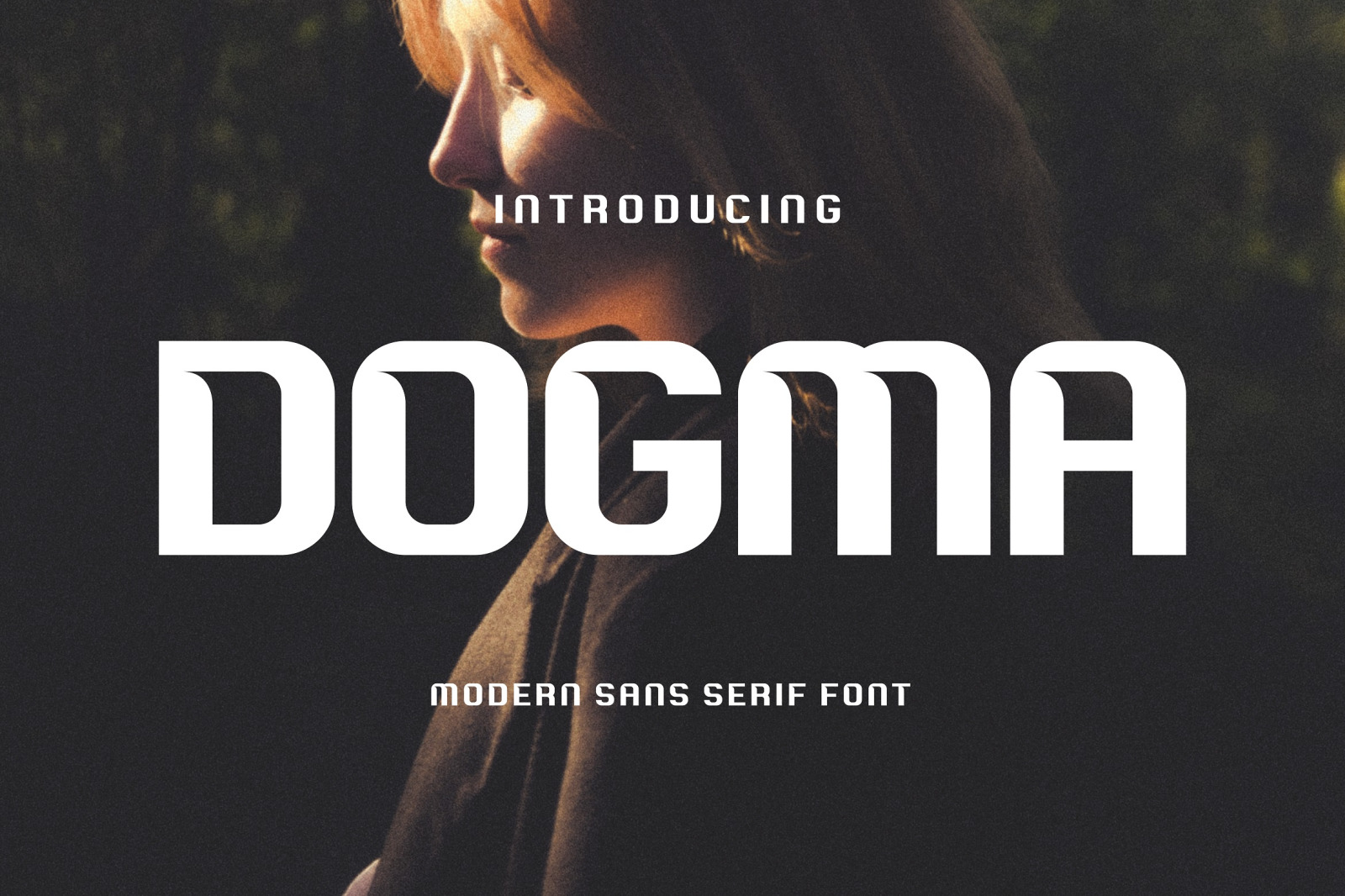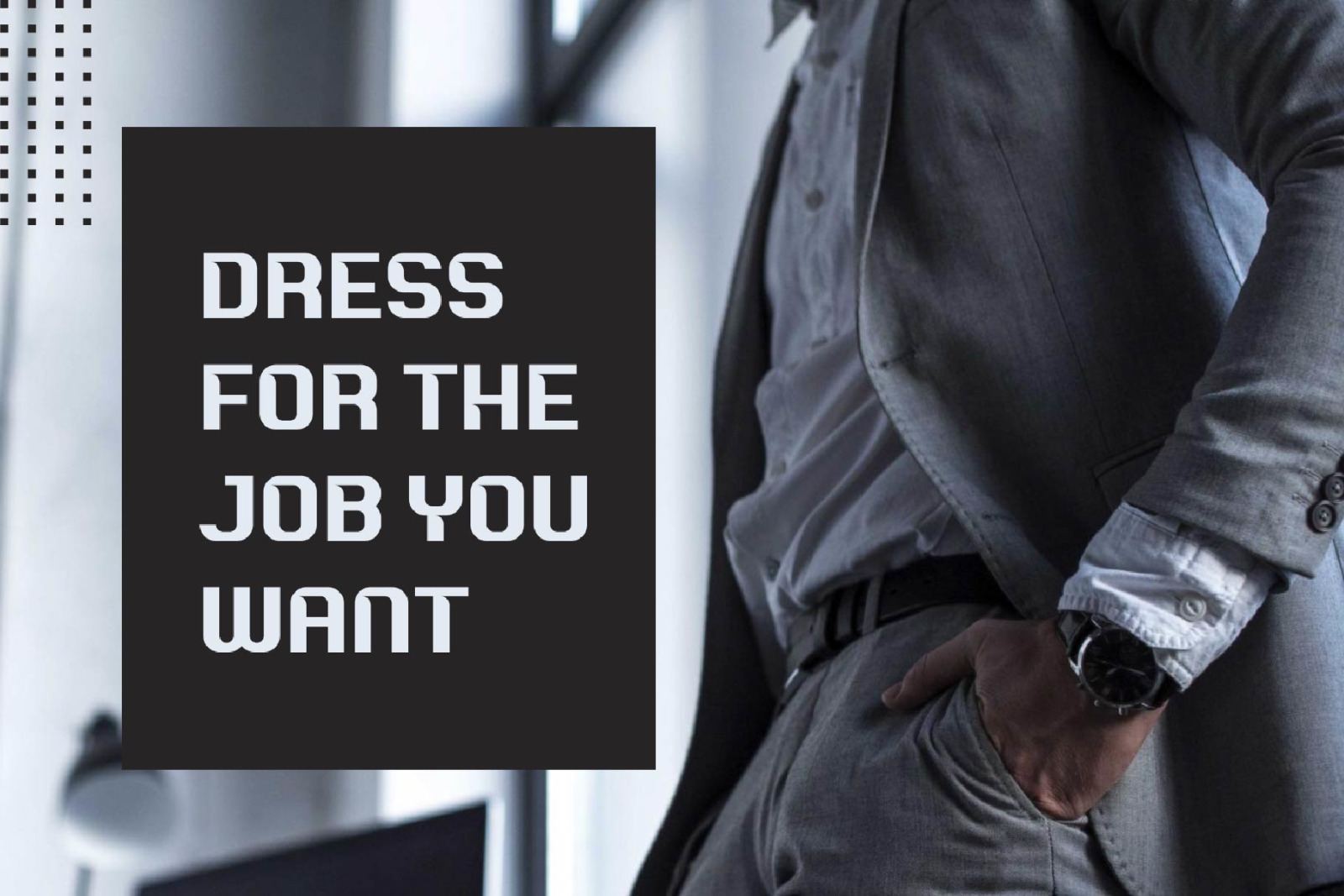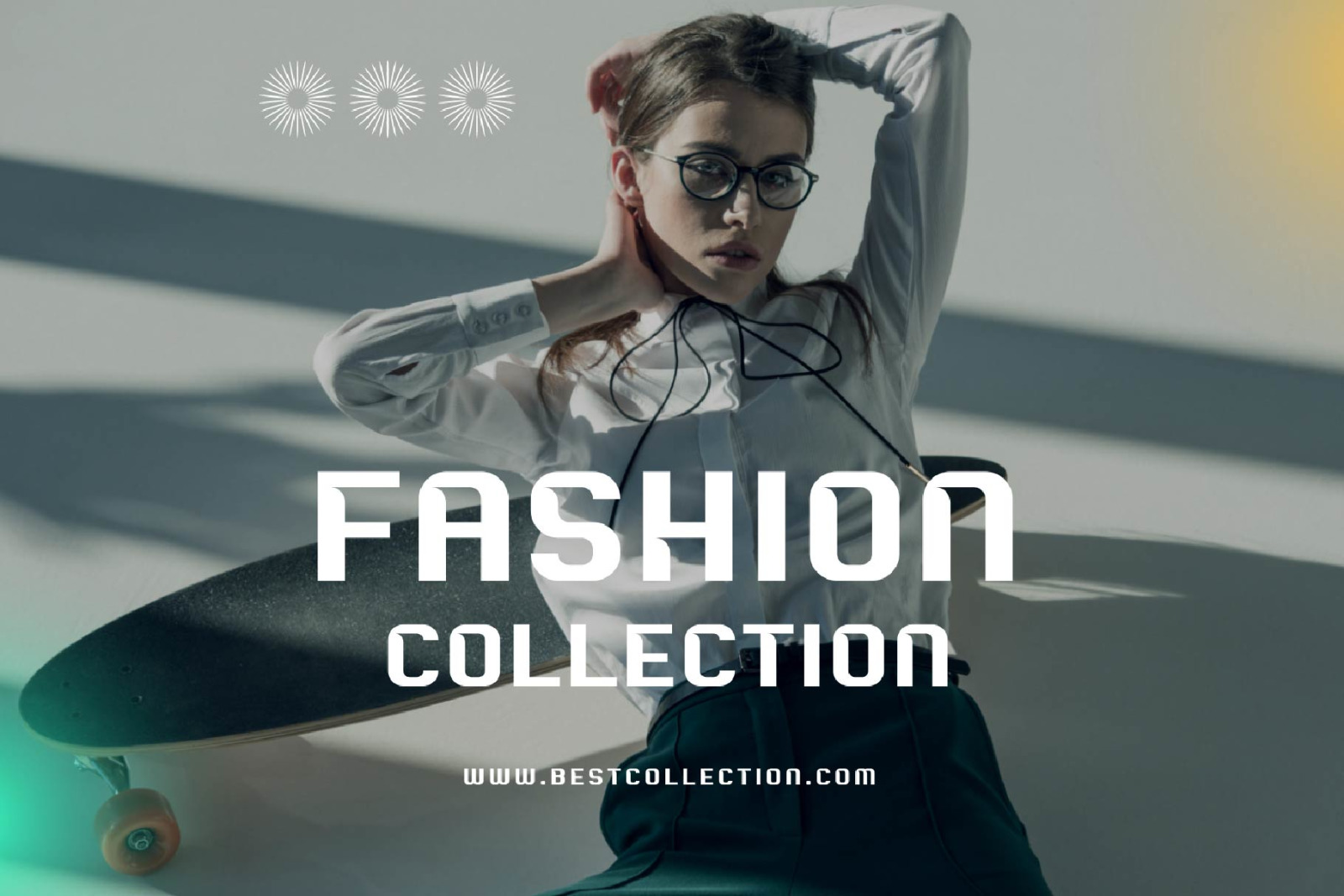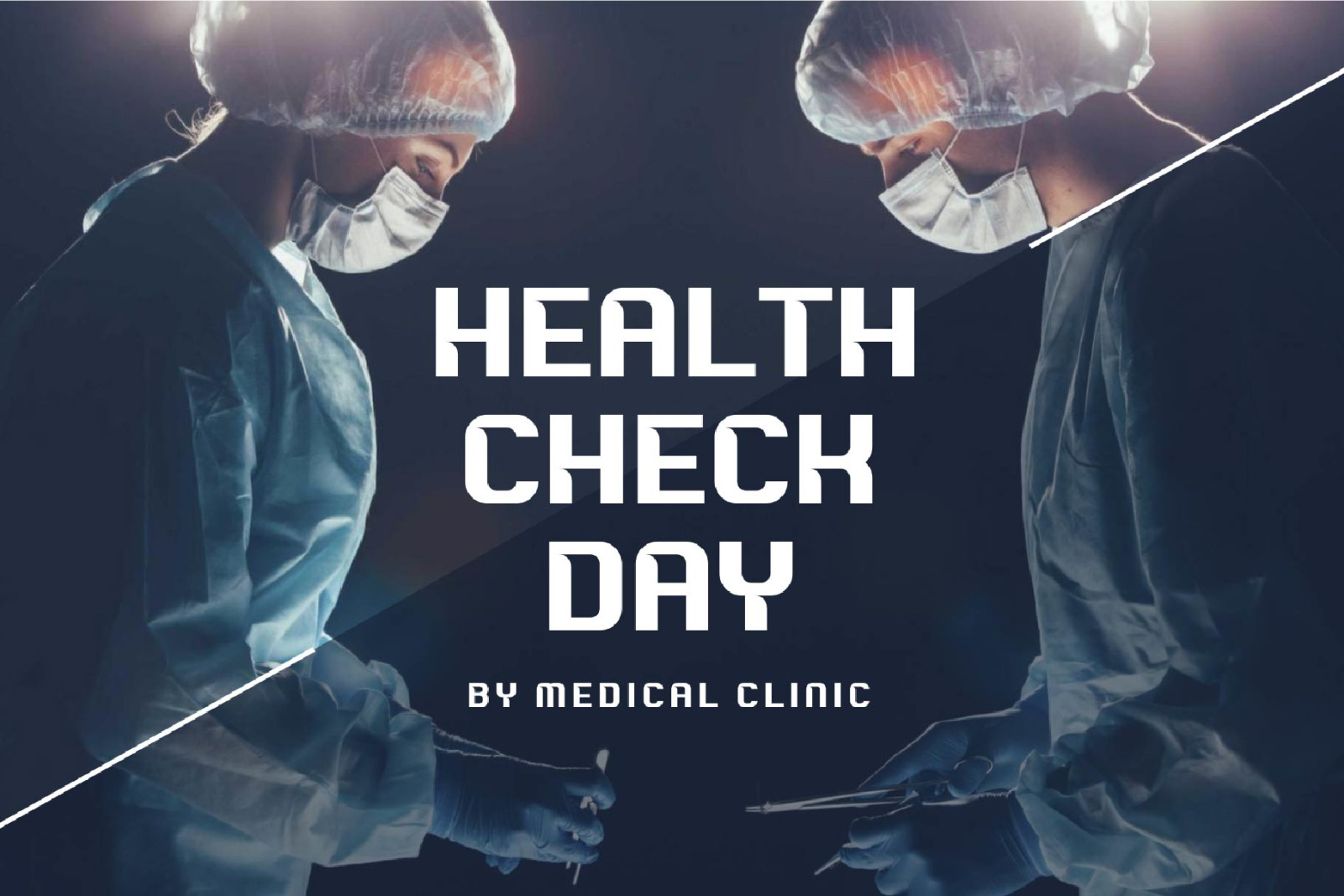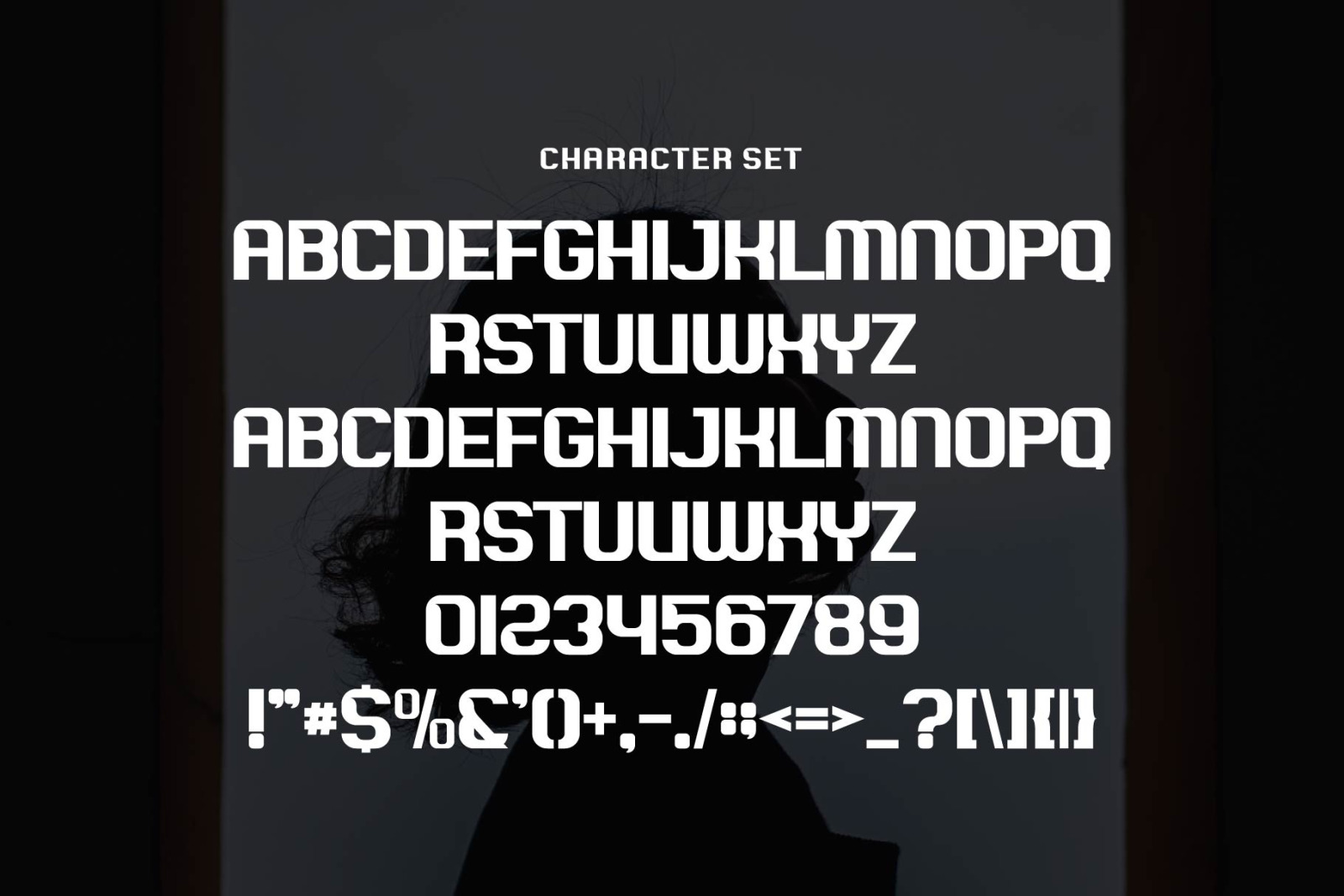
Dogma Font
Dogma Sans Font Typeface inspired by the famous minimalist logo perfect for the purposes of designing templates, brochures, videos, advertising branding, logos, invitation, layout design, elegant crafting, beauty design and other.